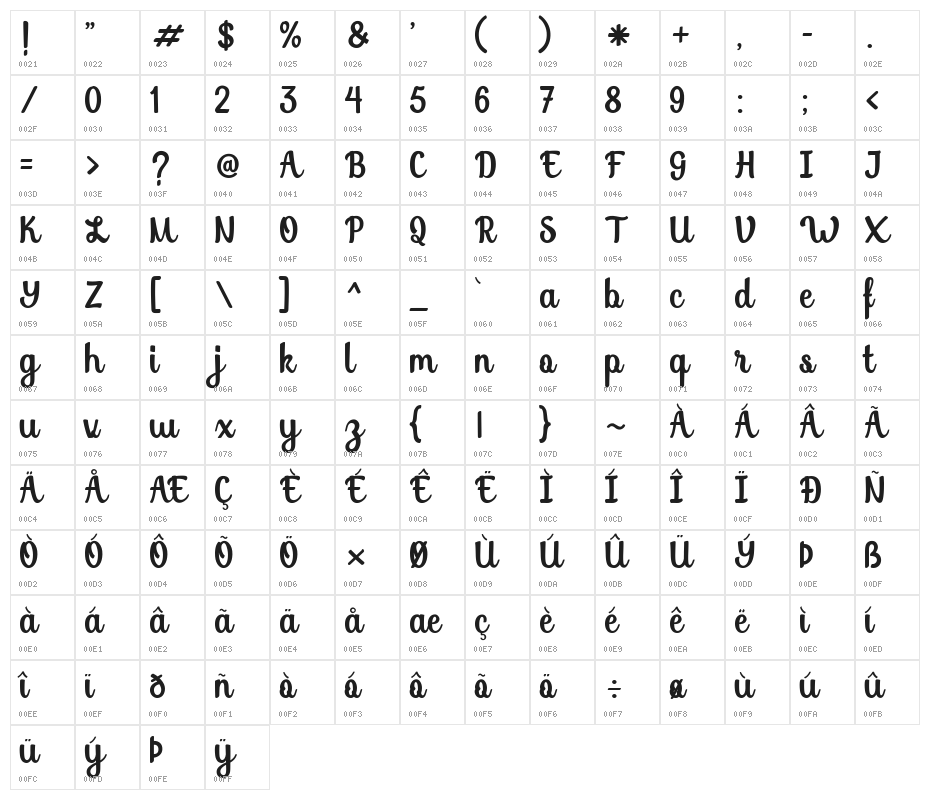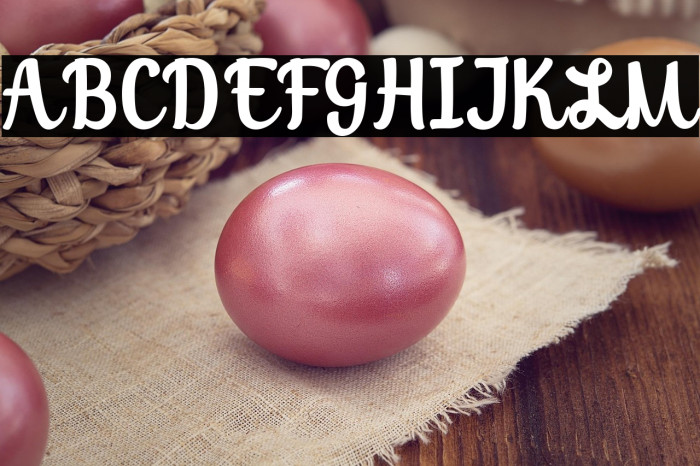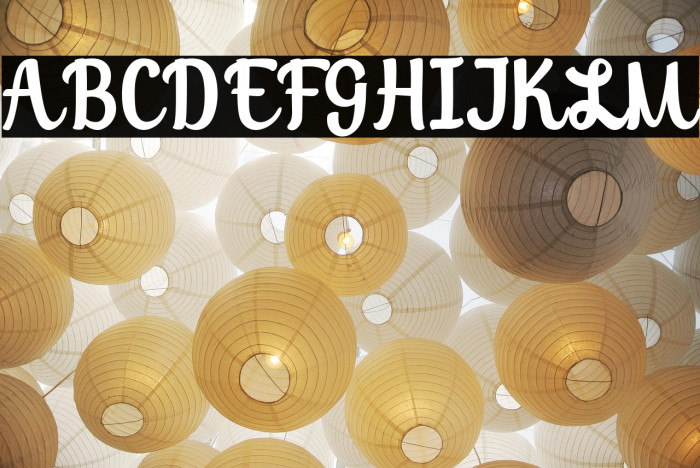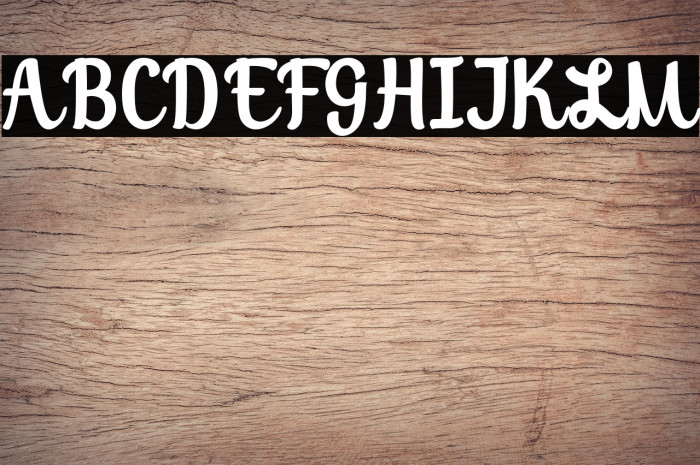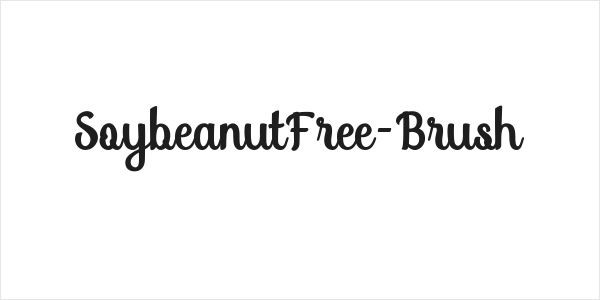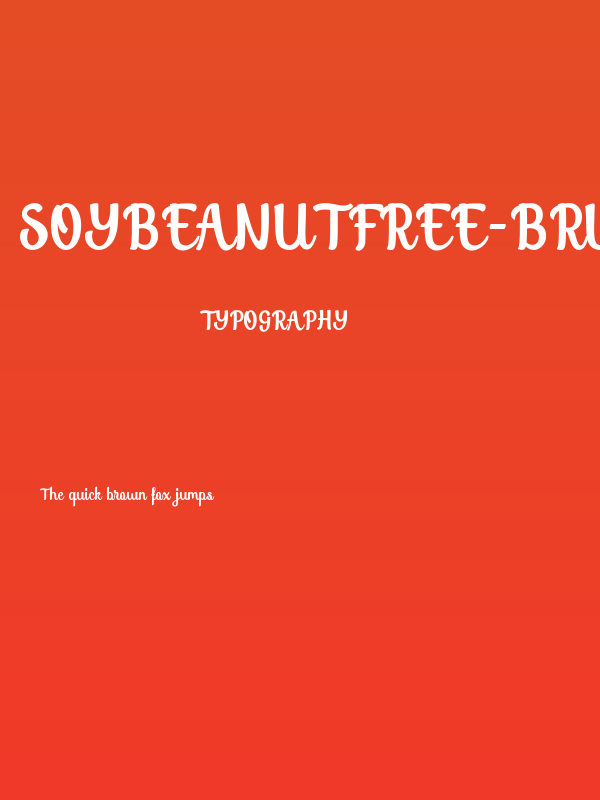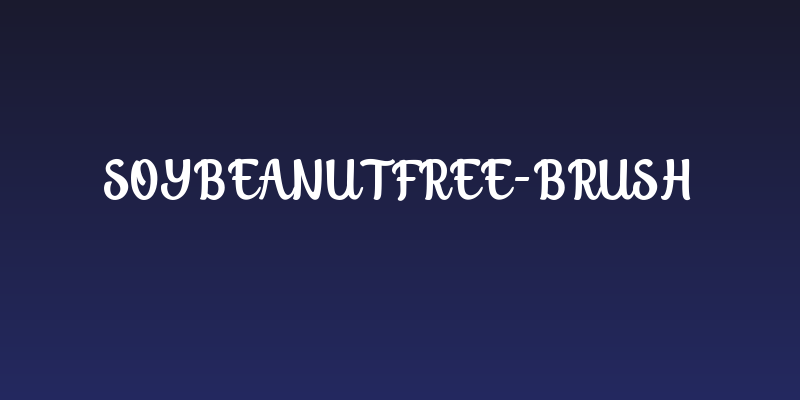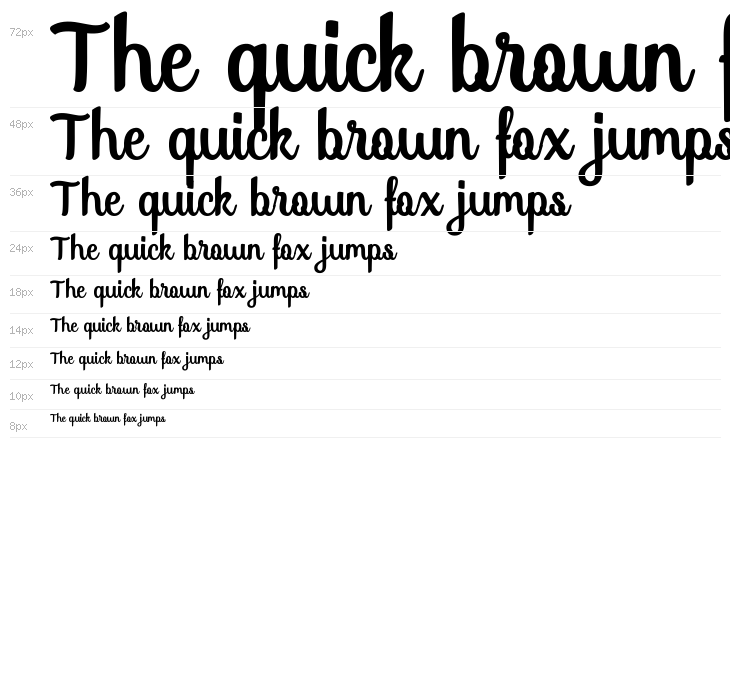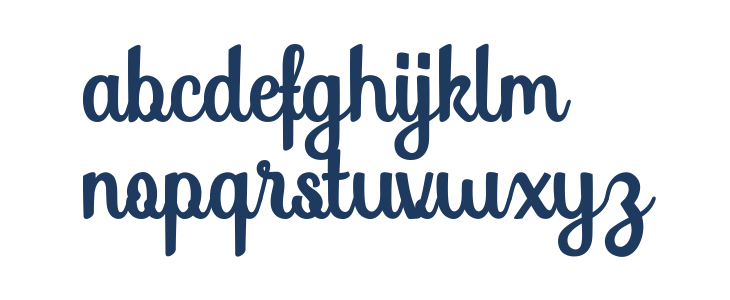
SoybeanutFree-Brush Font
SoybeanutFree-Brush Description
This font features a playful and energetic brush script style, characterized by its bold and flowing strokes. The uppercase letters are slightly more structured, while the lowercase letters exhibit a more fluid and connected design, creating a sense of movement and dynamism. The numbers and special characters maintain the same lively aesthetic, making the font versatile for various creative applications. The overall appearance is both casual and artistic, suitable for projects that require a personal touch.